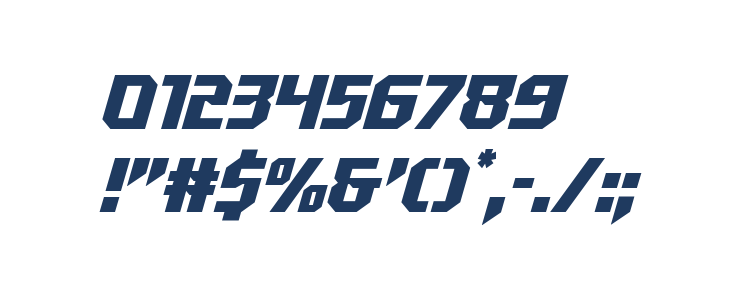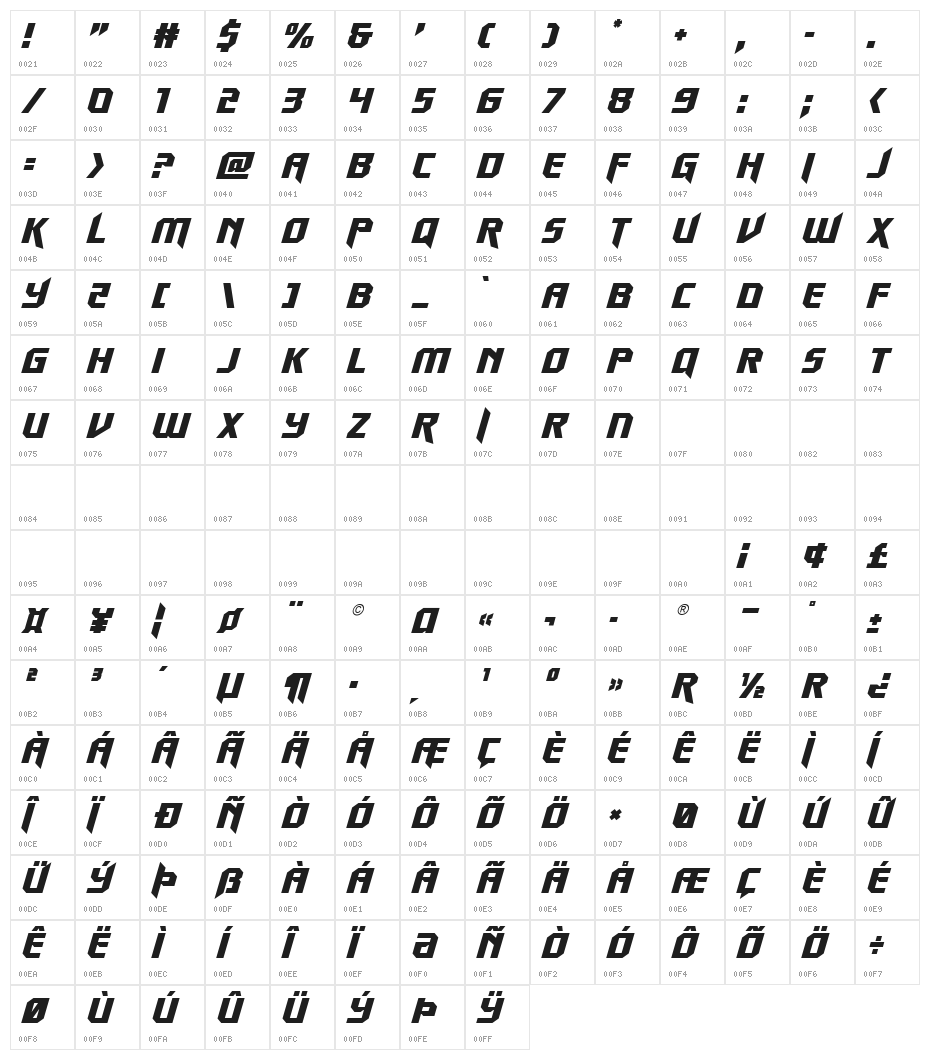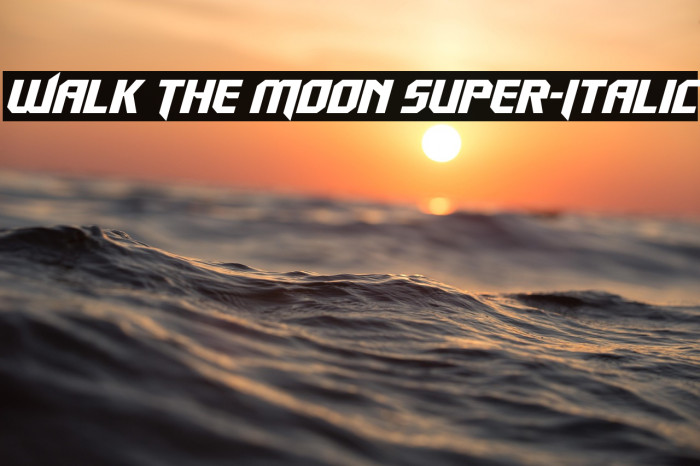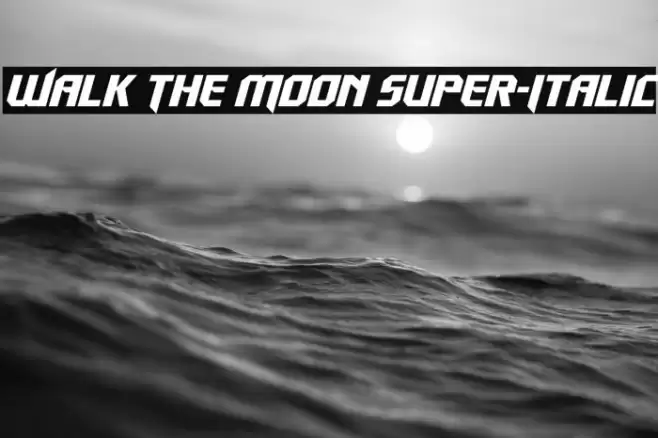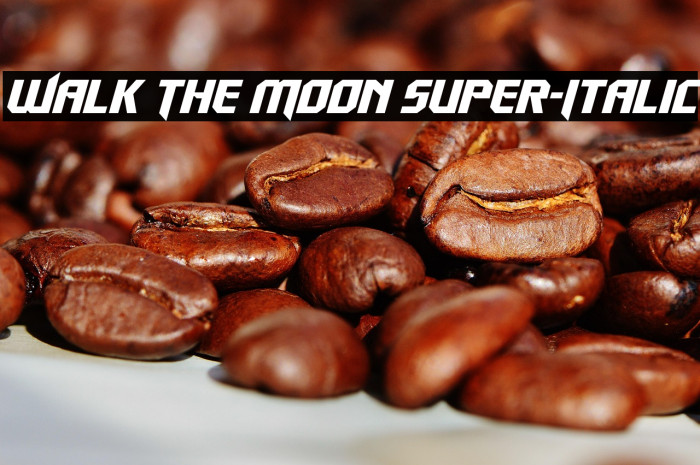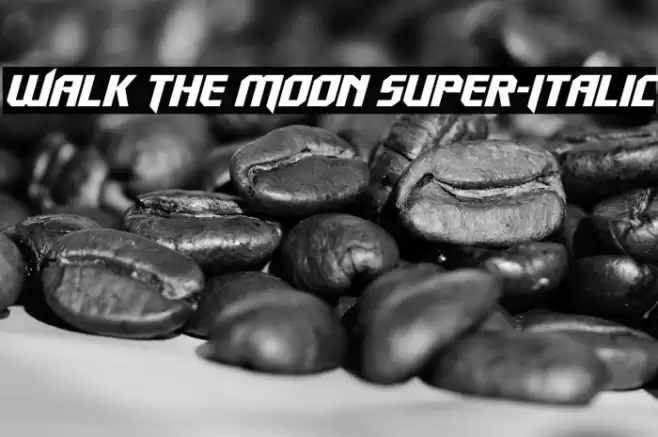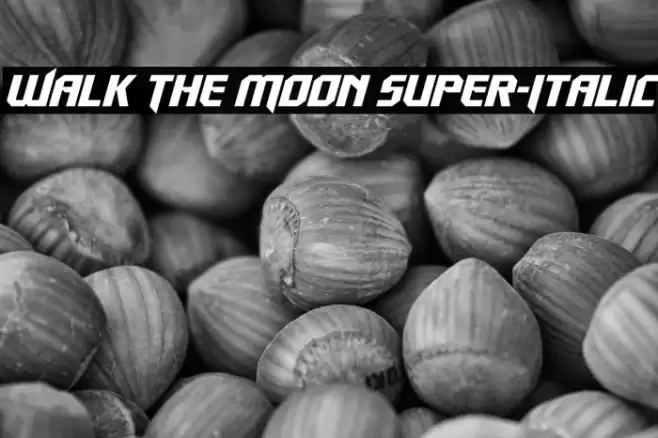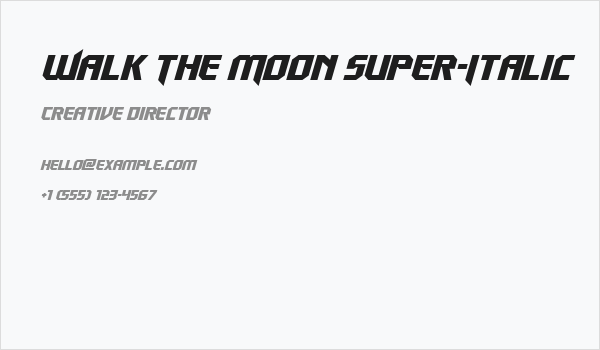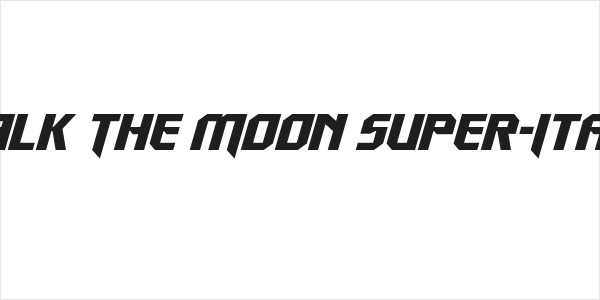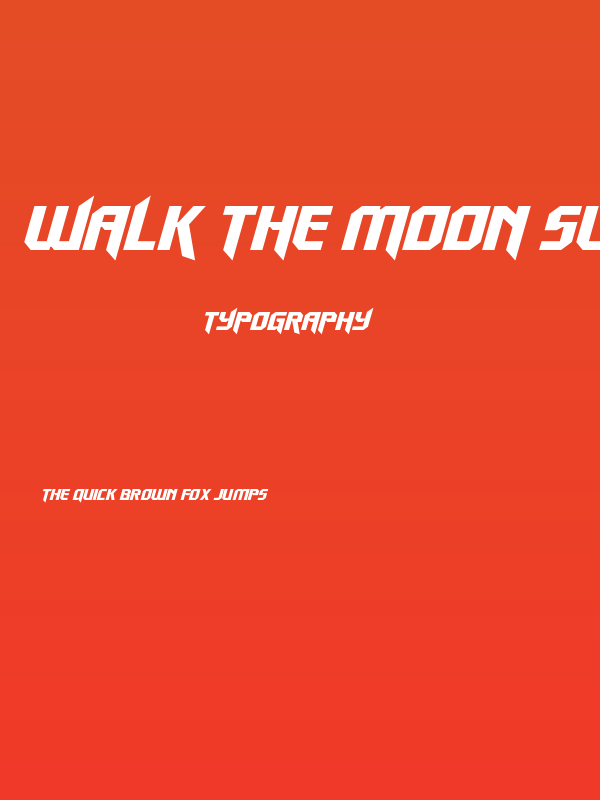
Walk The Moon Super-Italic Font
Walk The Moon Super-Italic Description
This font features a bold and dynamic style with a strong italic slant, giving it a sense of movement and energy. The characters are angular with sharp edges, creating a futuristic and edgy appearance. The uppercase and lowercase letters maintain a consistent style, while the numbers and special characters complement the overall design. The font's bold weight and unique style make it stand out, ideal for projects that require a modern and impactful look.
| Proposed Projects | Ideal for branding, sports team logos, video game titles, and dynamic posters. |